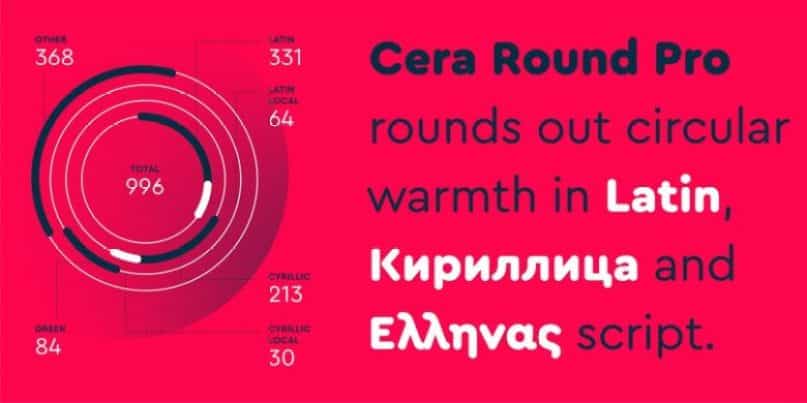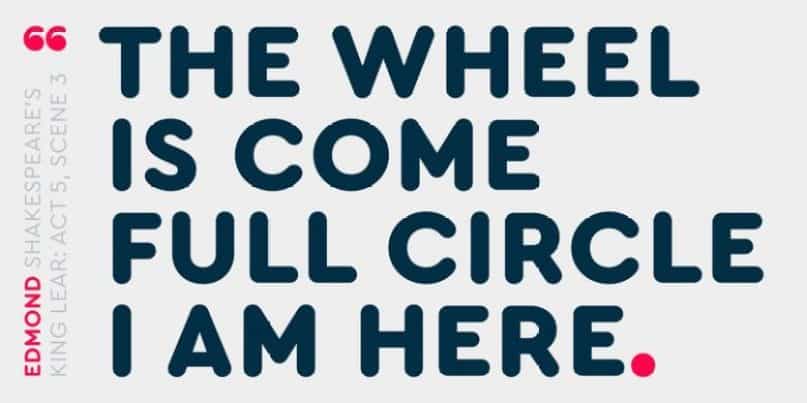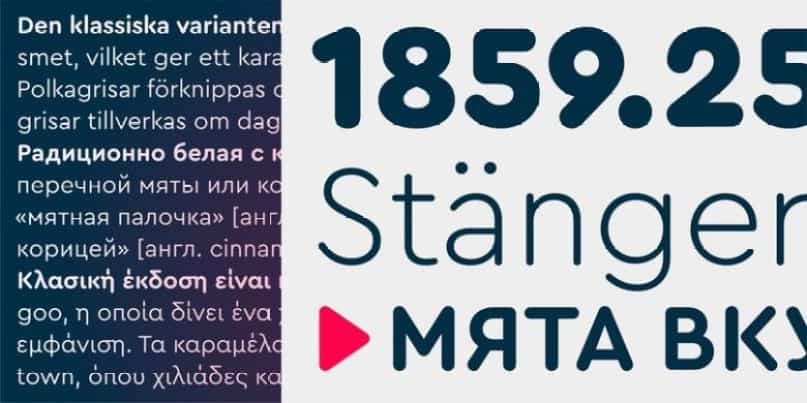
Cera Round Pro Sans Serif Family was designed by Jakob Runge and Lisa Fischbach and published by TypeMates. Offering six styles to choose from with package options that support Cyrillc and Greek, it communicates effectively across borders.